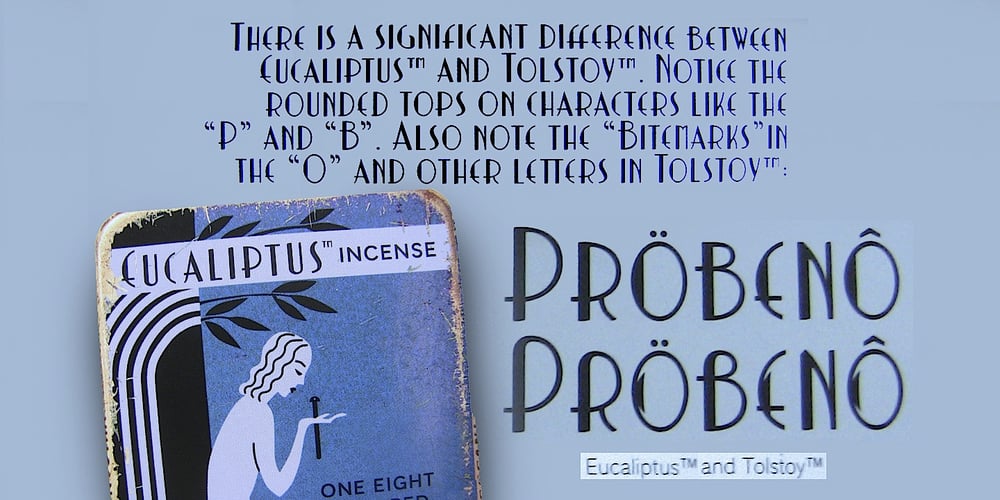
Tolstoy
Tolstoy font
Tolstoy Font Family was designed by Lloyd Springer and published by TypeArt Foundry. Tolstoy contains 2 styles and family package options. Eucaliptus Companion with rounded corners.